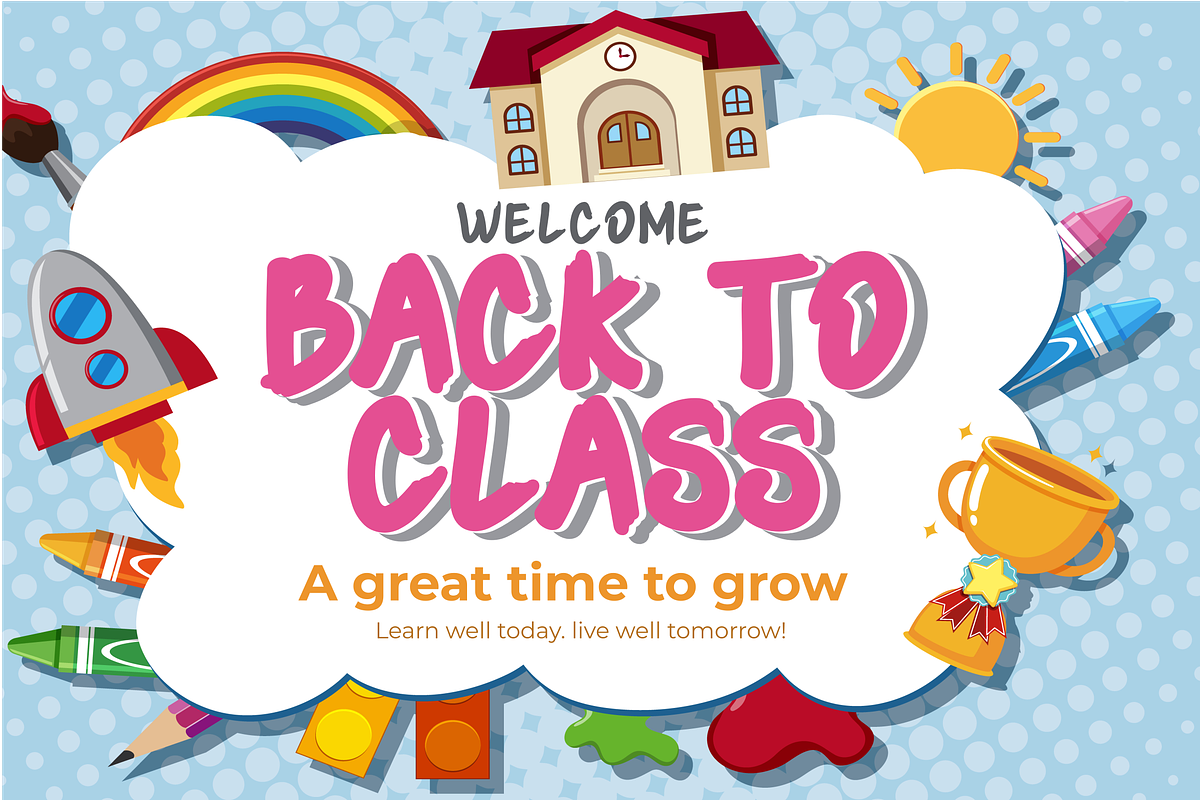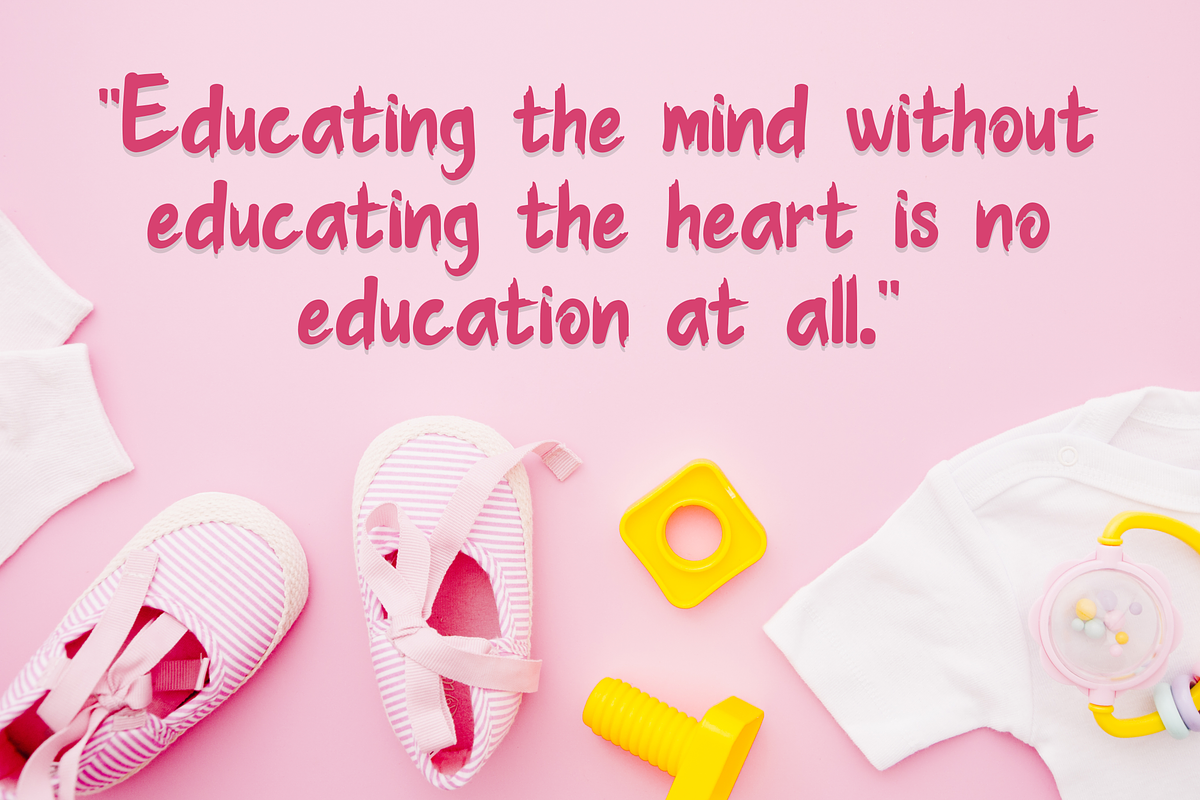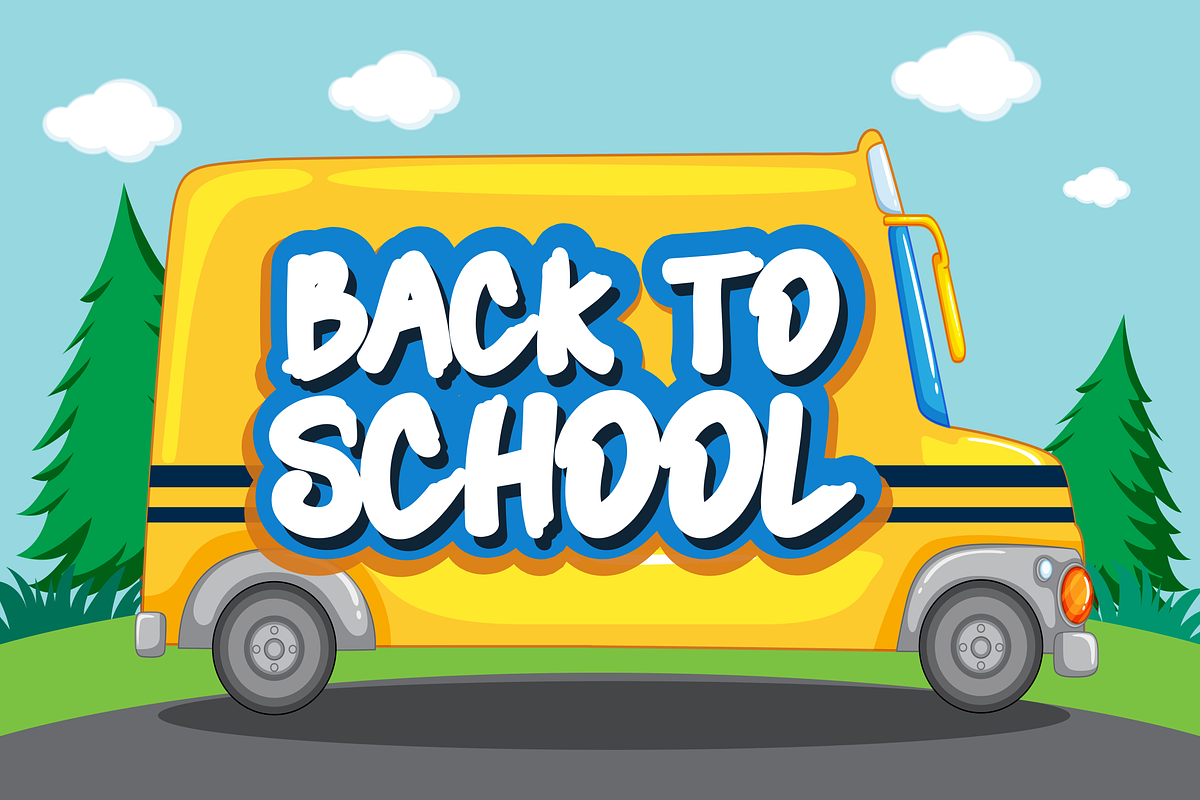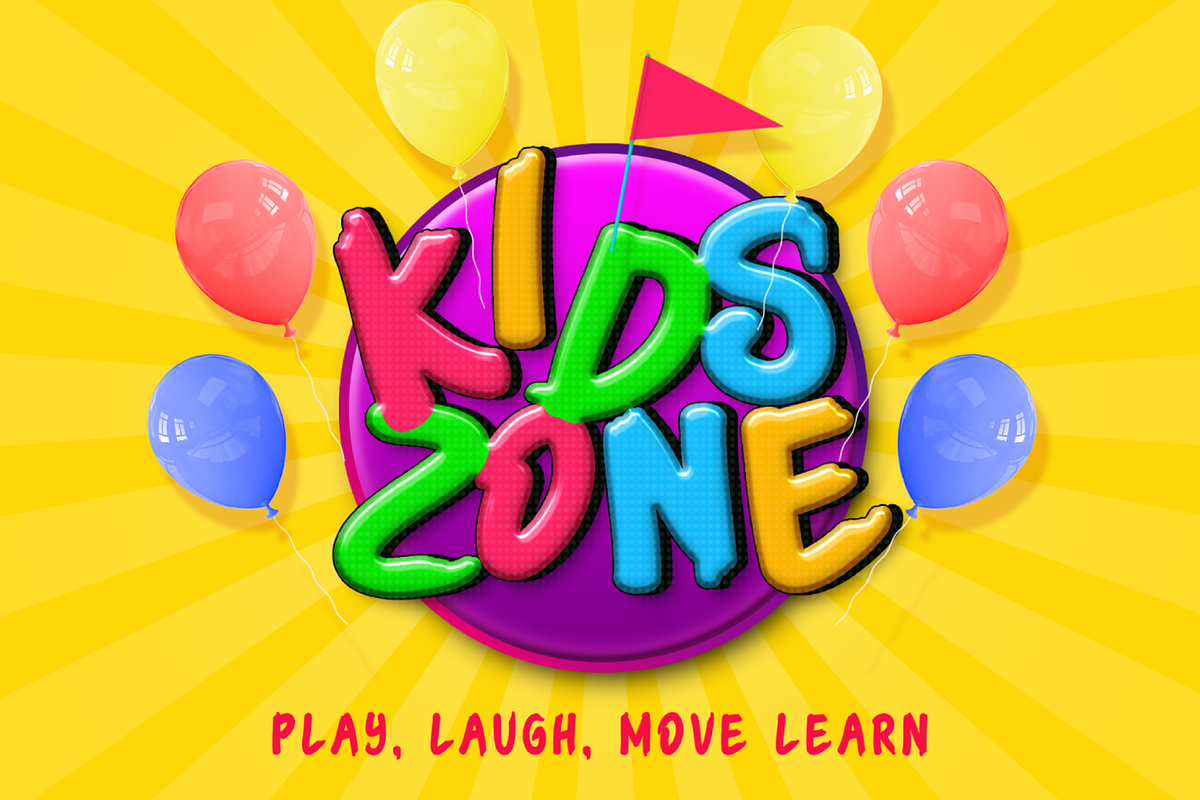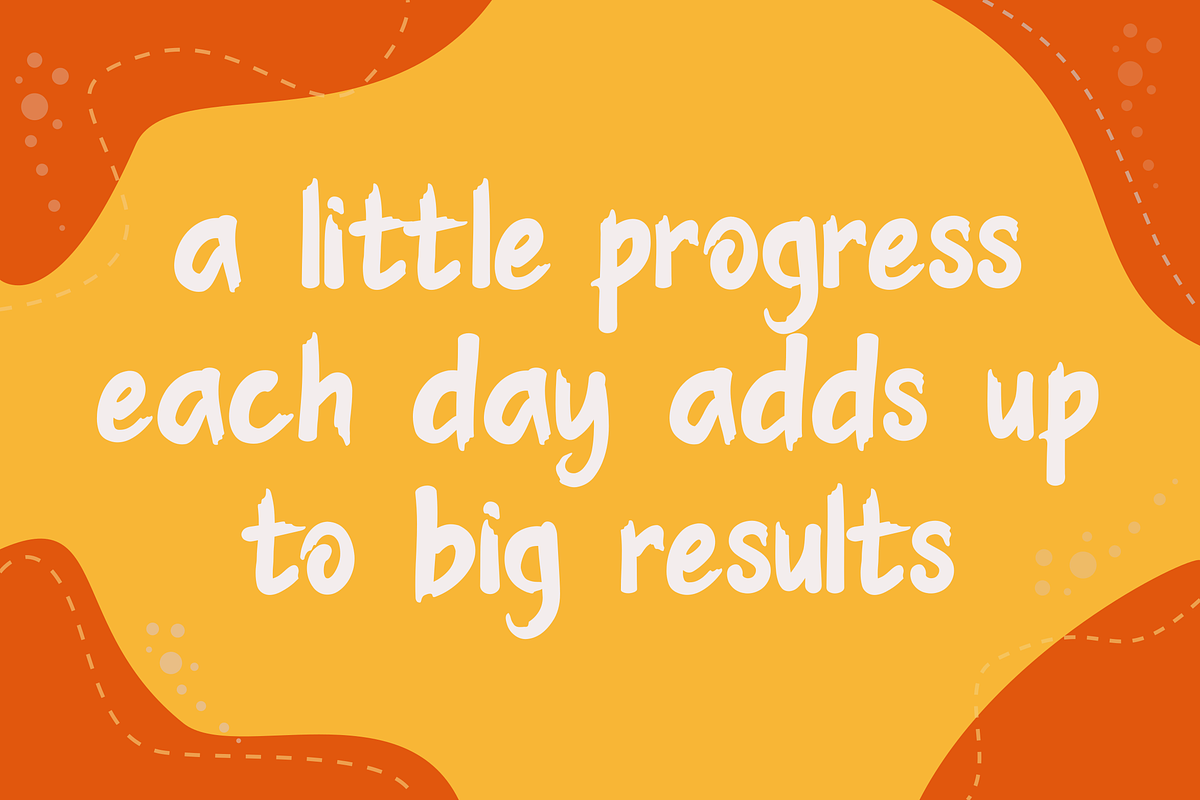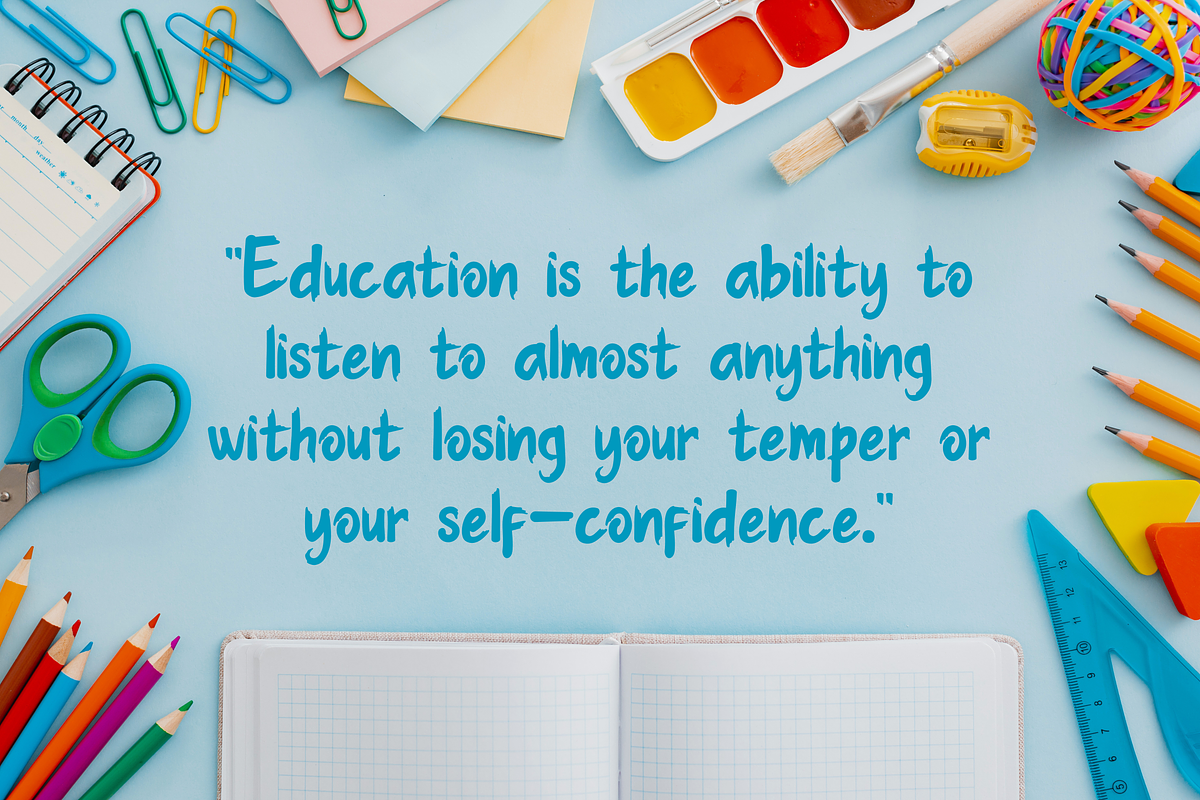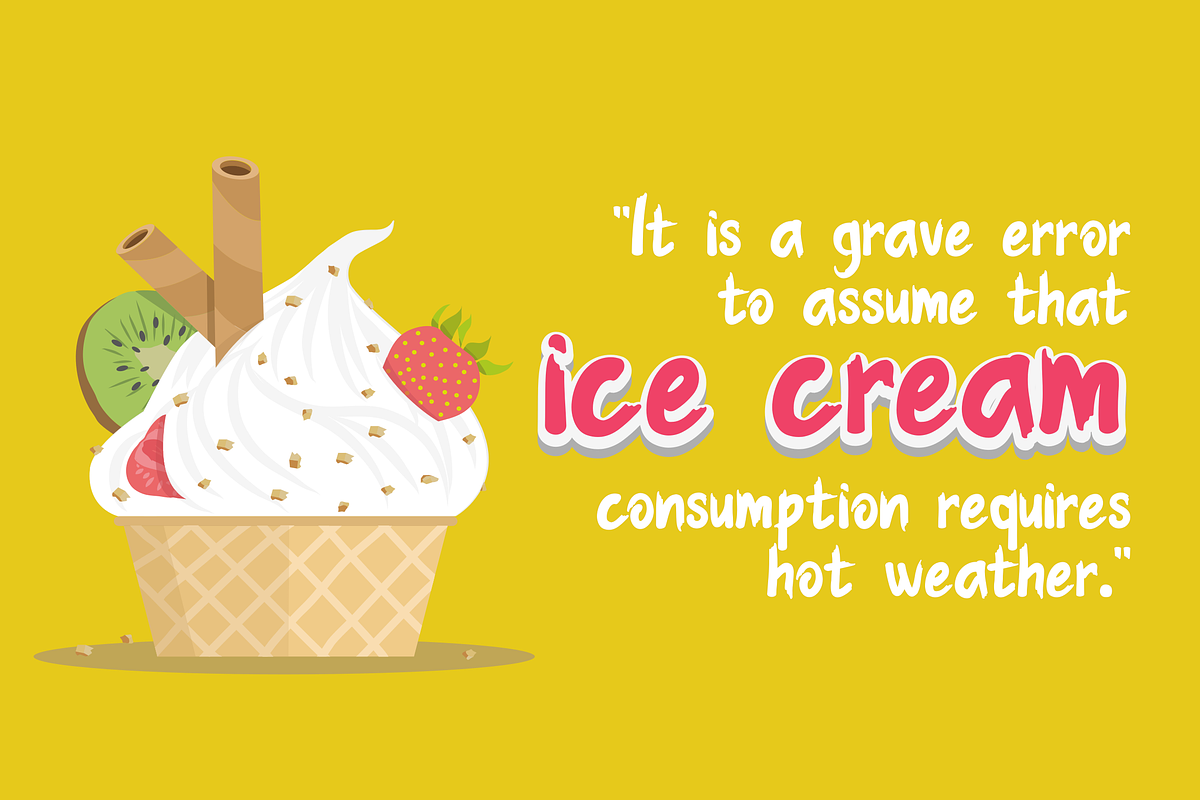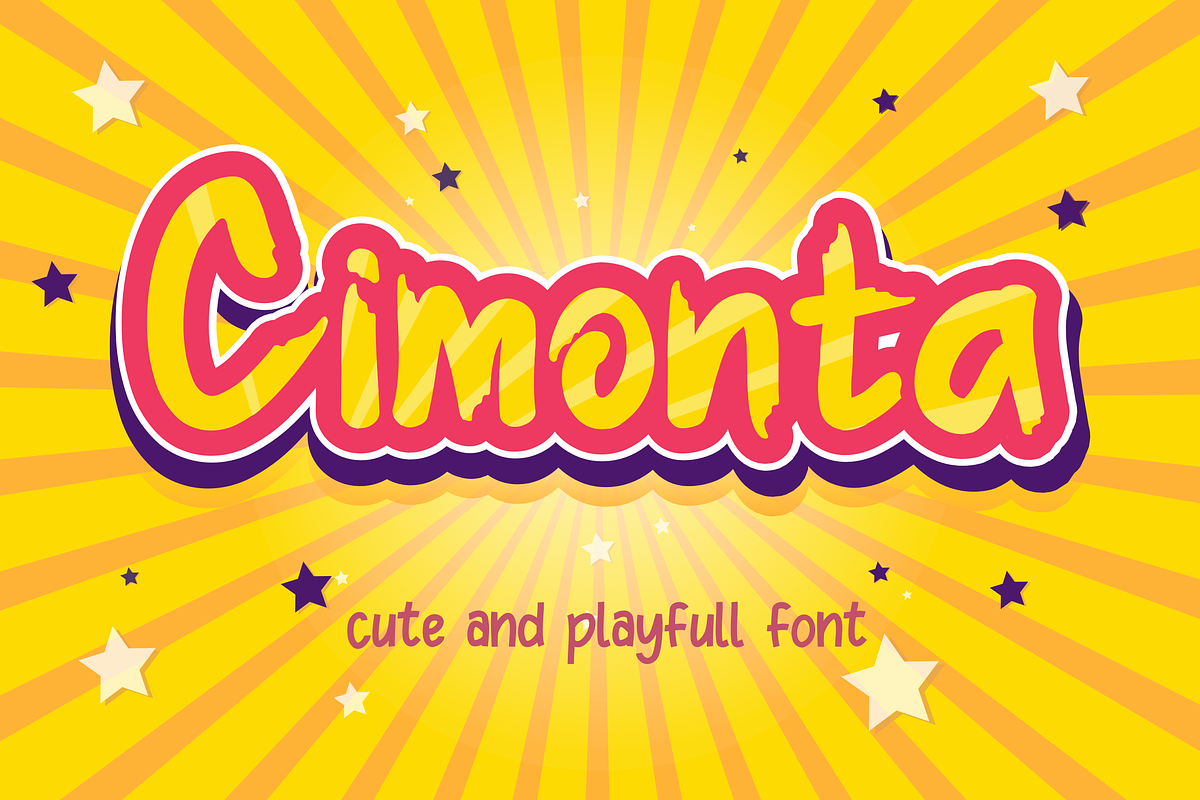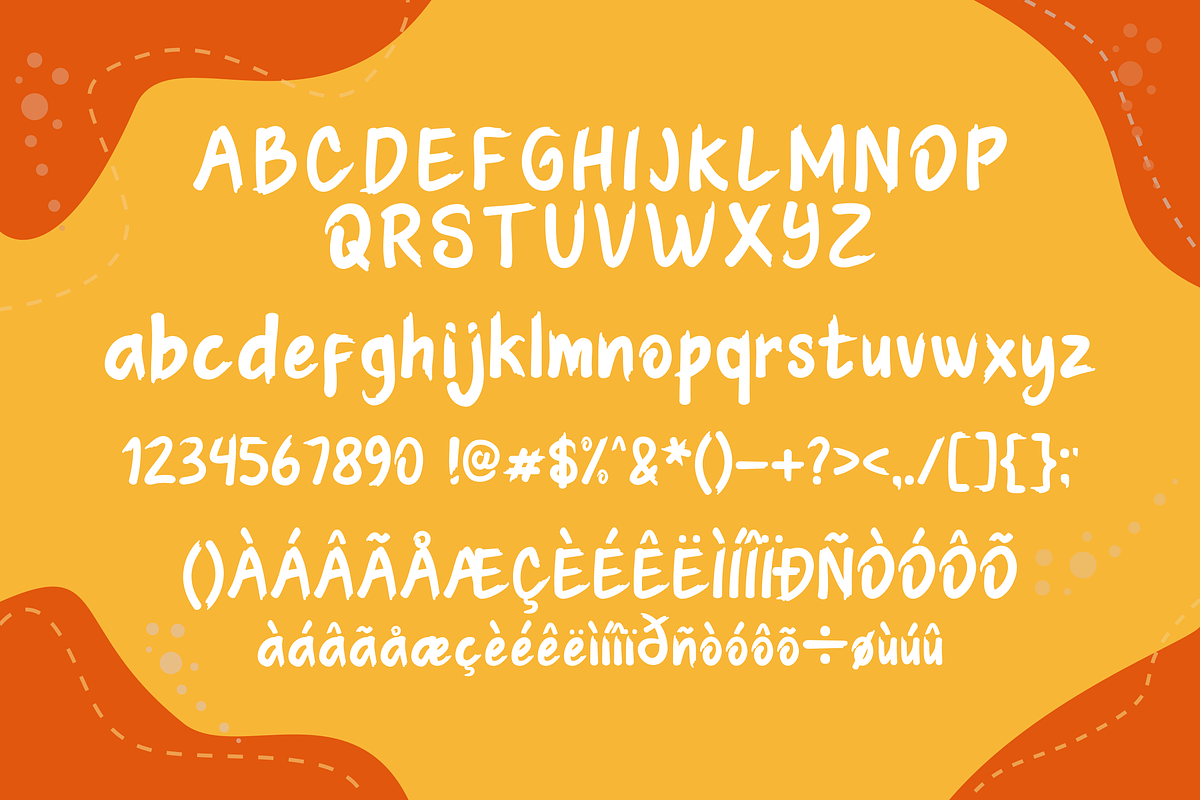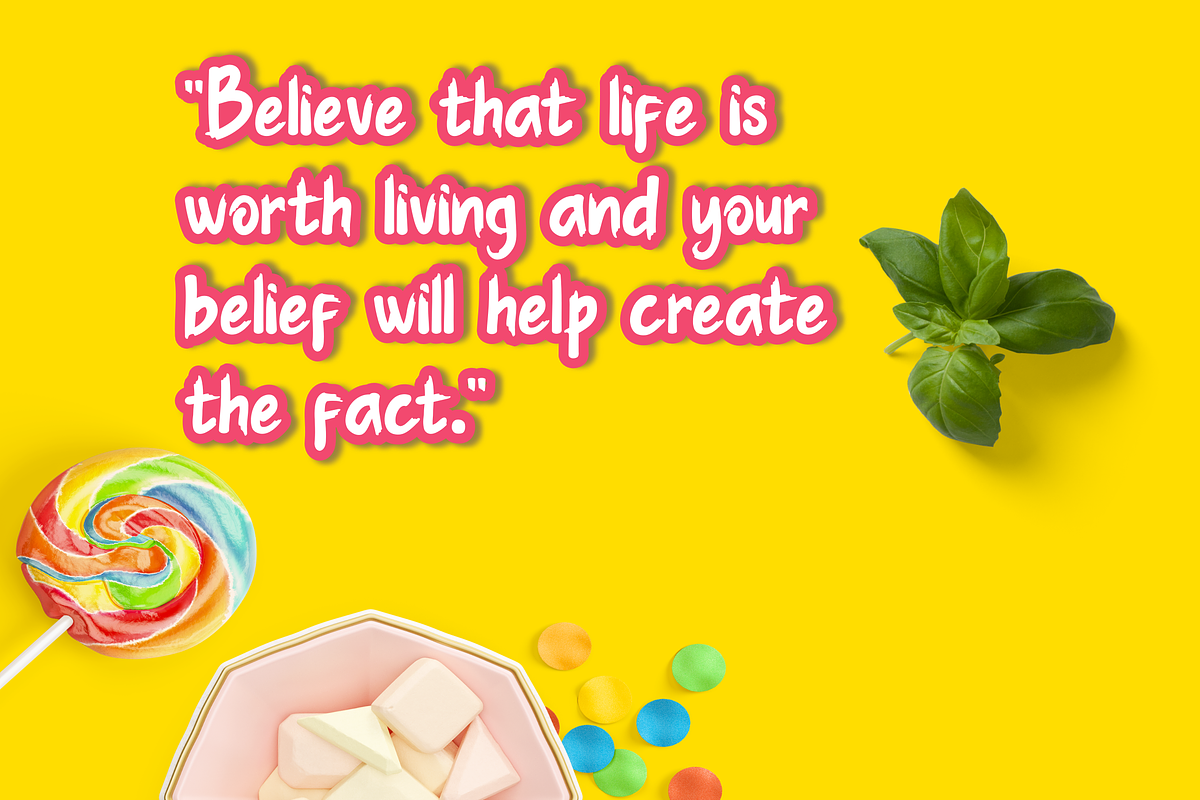
Cimonta || fun display
Cimonta is a cute comic font, carefully crafted to become a true favourite. Its casual charm makes it seem incredibly simple, easy to read and, ultimately, incredibly versatile. Cimonta will look amazing in any context, whether it's used in a busy background or as a stand-alone title!